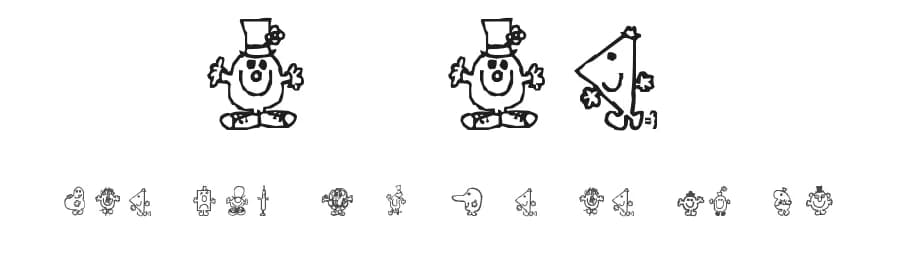
About Mr Men Font
Mr Men is a dingbat font designed by Pearlygates. It includes 41 glyphs, a regular weight, and TTF (TrueType) format. Mr Men is free to download; check the license details on this page before commercial use. Dingbat fonts like Mr Men work best for icons, ornaments, bullet points, and decorative accents.
Mr Men Font is a versatile dingbats font that works for both headings and body text. Pair it with a contrasting sans-serif or serif font to add visual interest and a clear distinction between titles and body copy.
Mr Men Font is a dingbats typeface by Pearlygates, ideal for logos, invitations, branding, and creative projects.